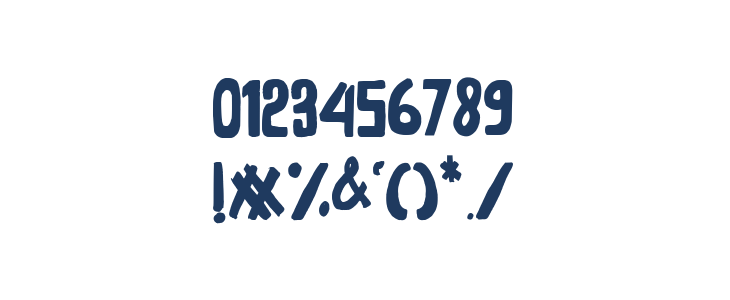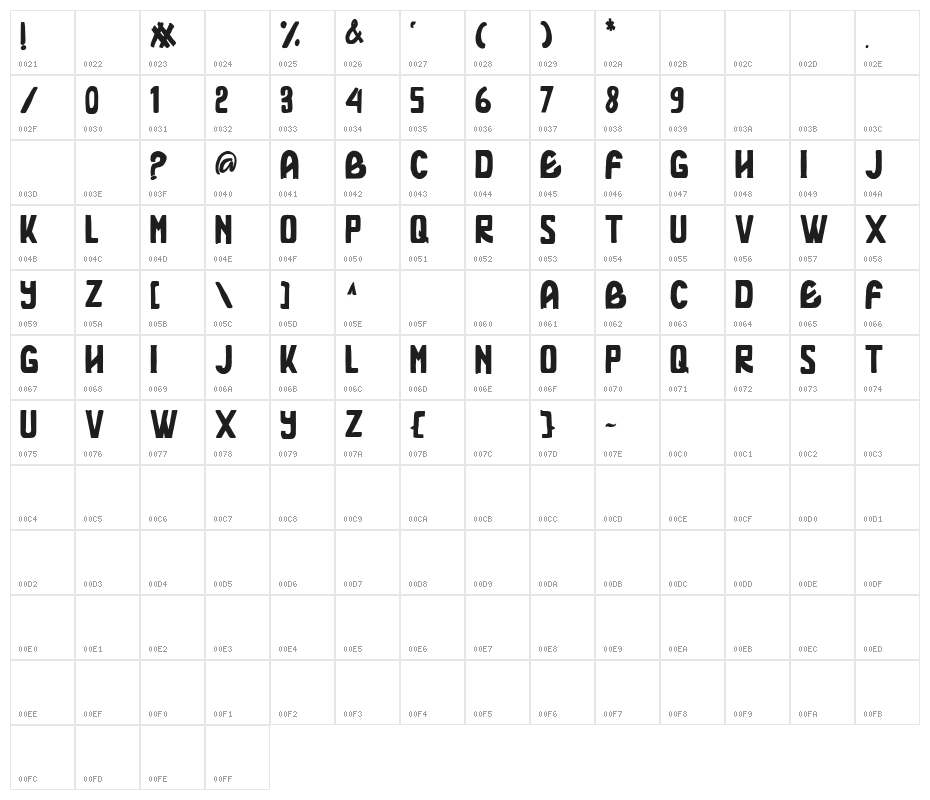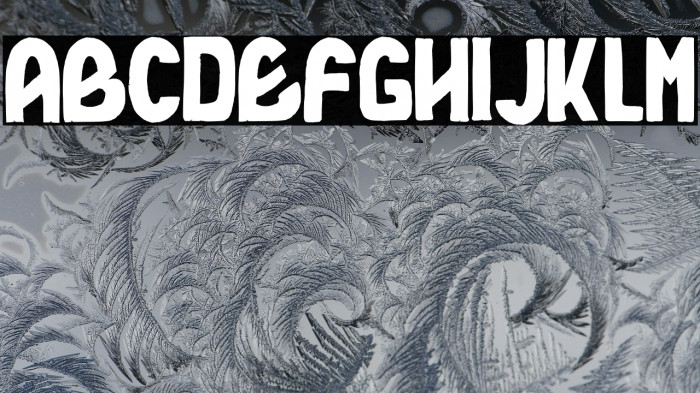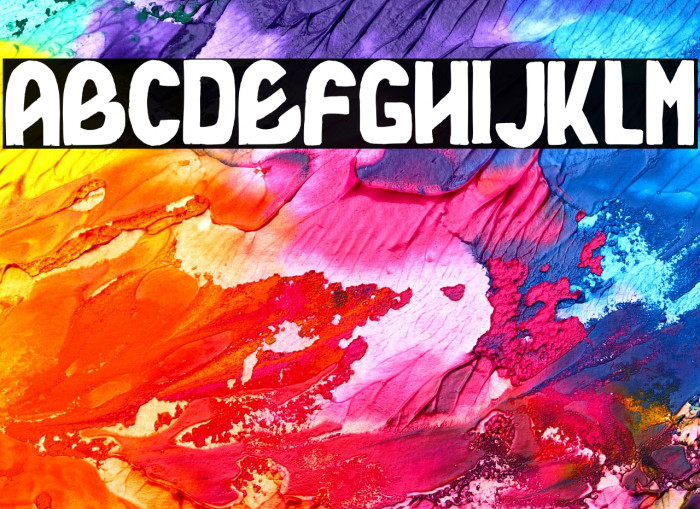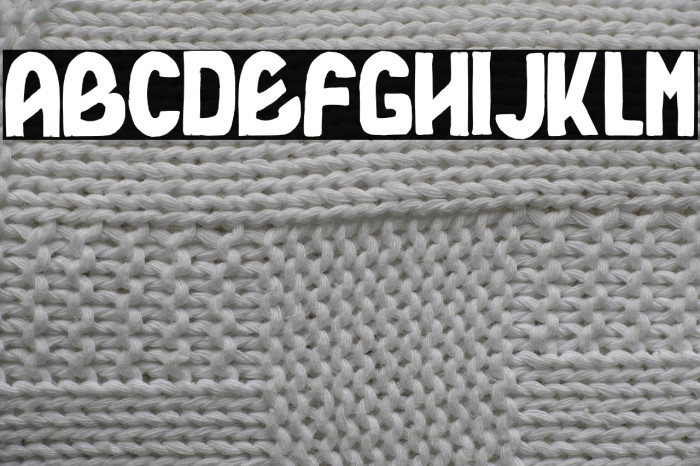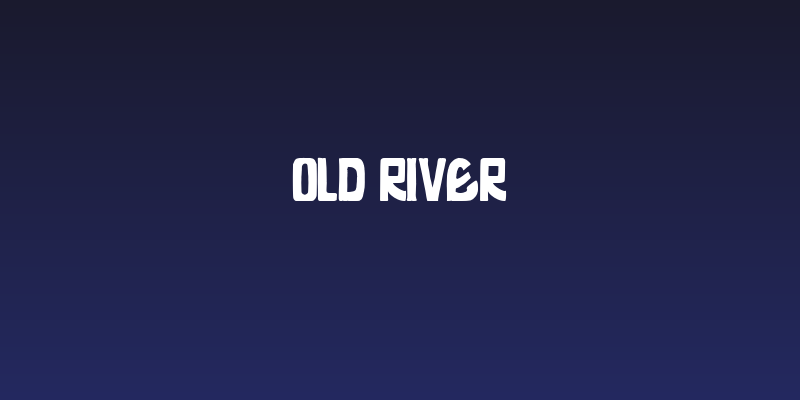
Old River Font
Old River Description
This font features a bold and robust design with a distinctly vintage flair. The characters are thick and slightly condensed, with rounded edges that give a friendly and approachable feel. The uppercase letters are uniform in height, while the lowercase letters maintain a consistent baseline, enhancing readability. The numbers are equally bold, matching the style of the letters, and the special characters are creatively designed to complement the overall aesthetic. This font's unique style is reminiscent of retro signage or old-school advertisements, making it stand out in any design project.
| Proposed Projects | Ideal for vintage-themed posters, retro branding, signage, and creative advertising. |